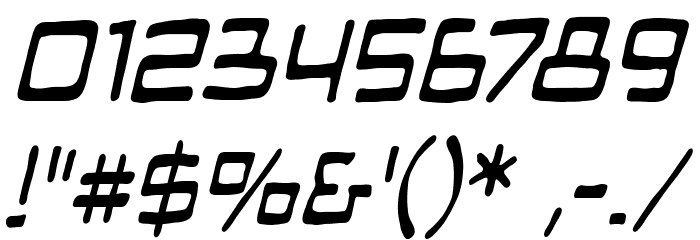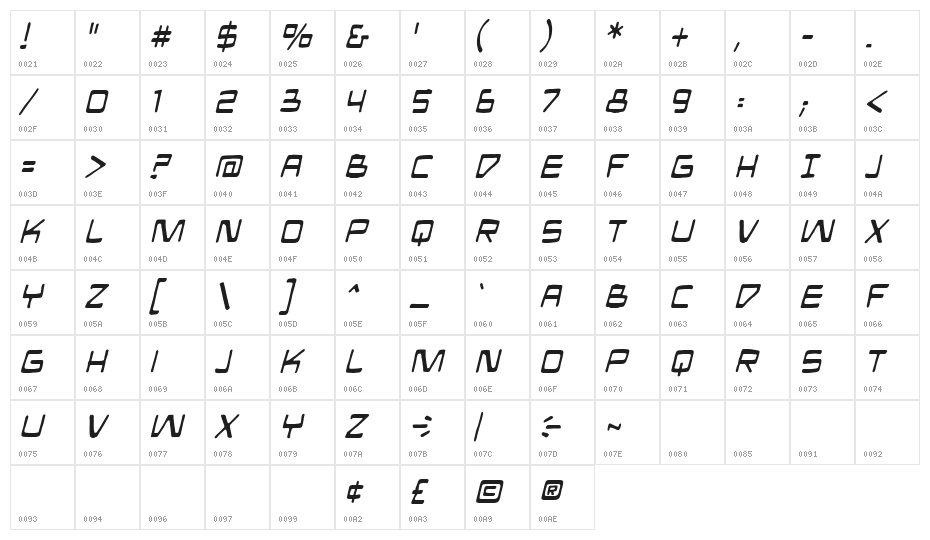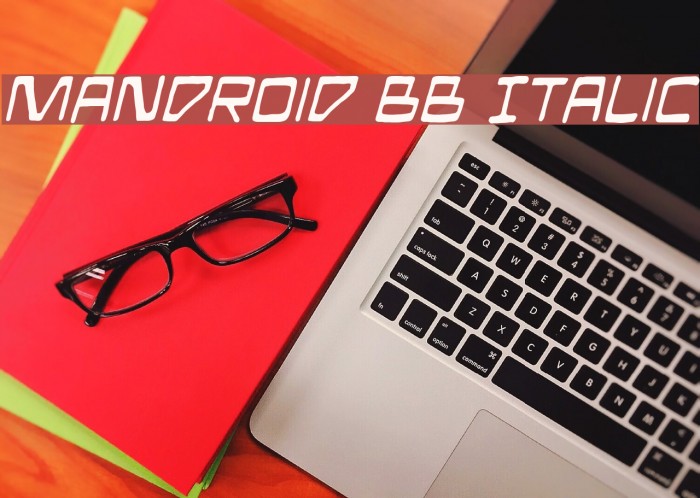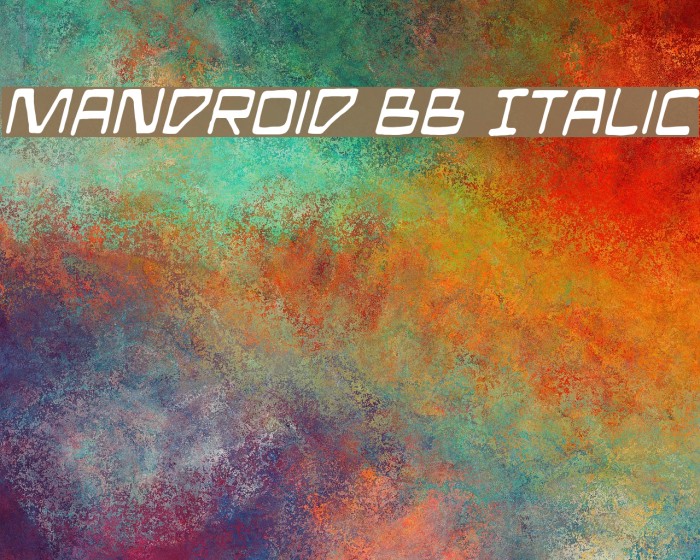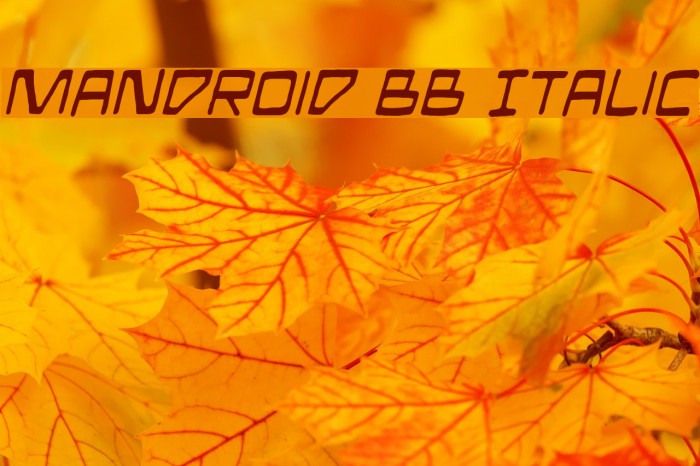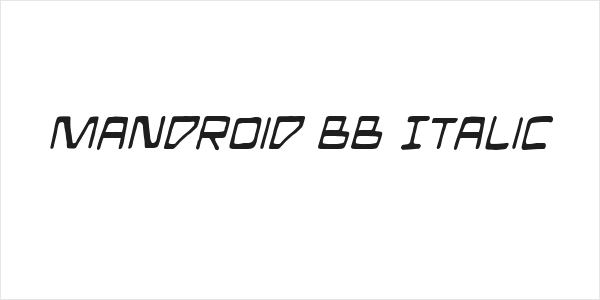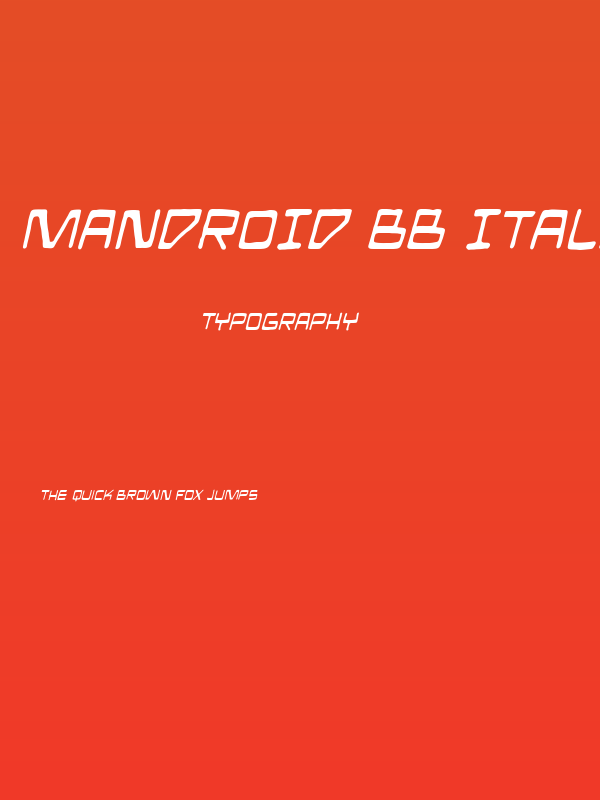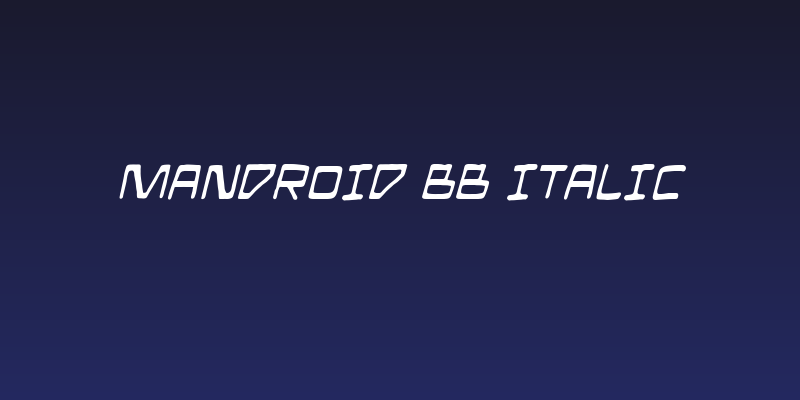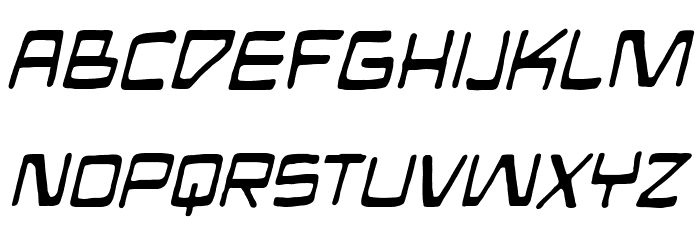
Mandroid BB Italic Font
Mandroid BB Italic Description
This font exhibits a futuristic and dynamic style, characterized by its italicized and slightly condensed form. The letters have a sleek, angular appearance with a consistent stroke width, giving it a modern and tech-inspired look. The characters are well-defined with a slight slant, enhancing the sense of motion and speed. The numerals and special characters maintain the same stylistic features, ensuring uniformity across all glyphs. This font is ideal for projects that require a contemporary and energetic feel, such as technology branding, video game titles, or sci-fi themed designs.
Proposed ProjectsIdeal for technology branding, video game titles, sci-fi themes, and dynamic logos.